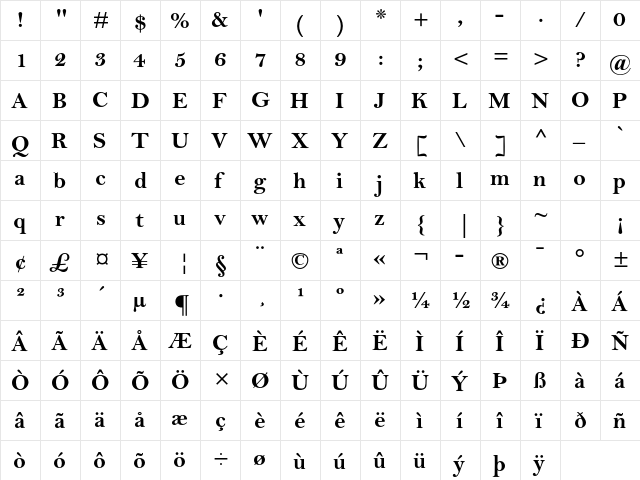
Bell MT Std Bold Font Preview
Bell MT Std Bold
Bell MT Std Bold Font Details
| Designer | Richard Austin |
Design Context for Bell MT Std Typeface
Bell MT Std offers clean, dependable letterforms without strong stylistic allegiance, making it a practical choice for designers who need flexibility. The heavy weight commands attention and anchors typographic hierarchies.